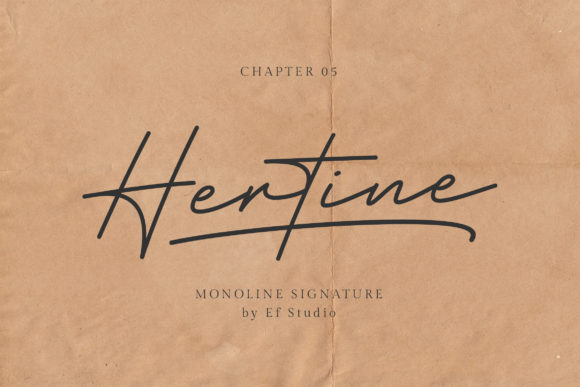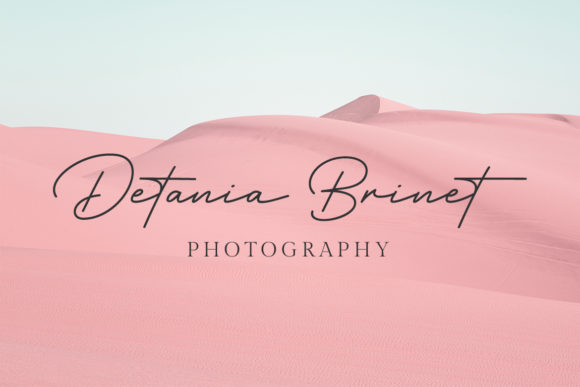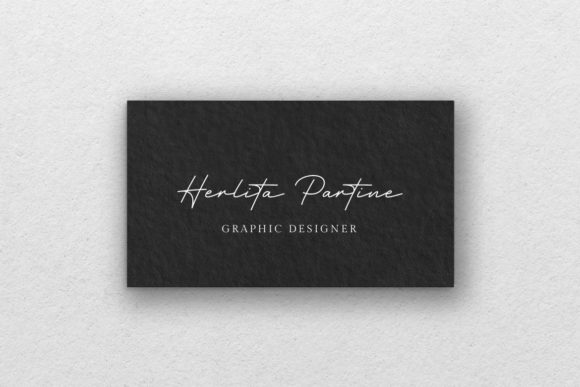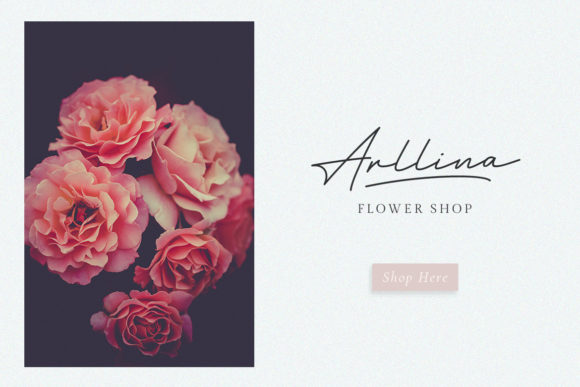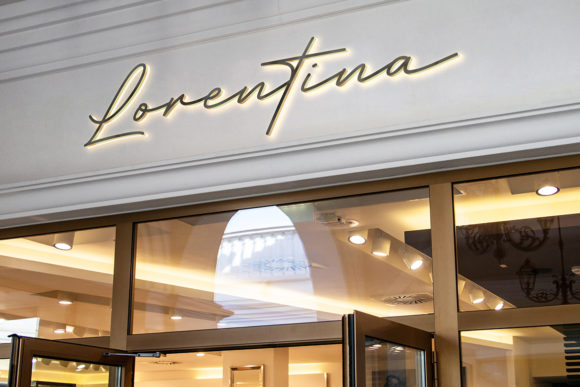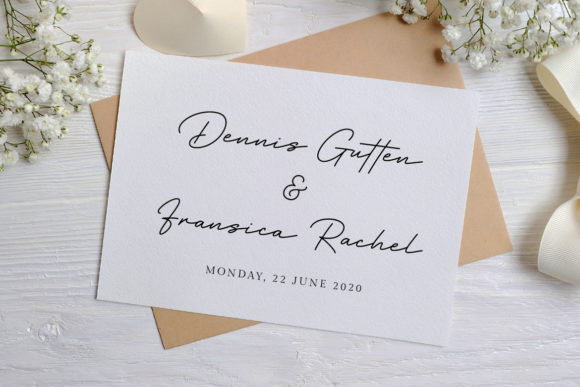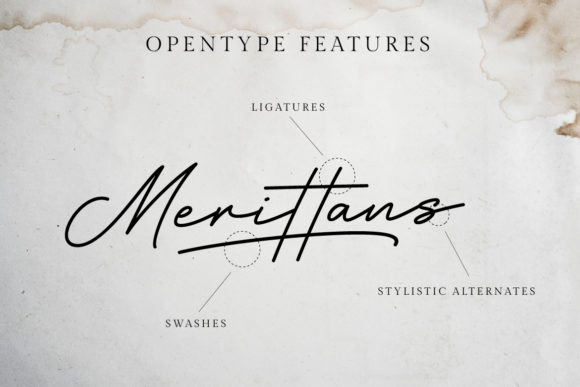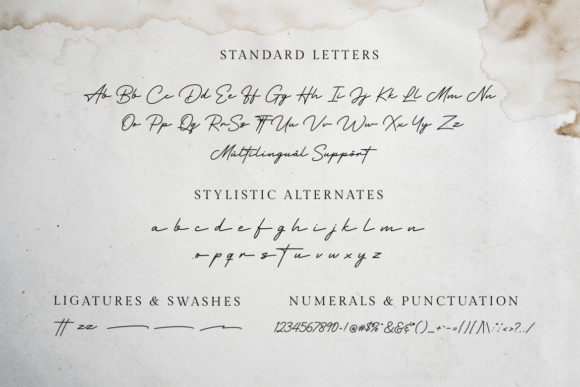
Hertine Font
About Hertine Font
Hertine is a friendly and casual script font with a unique style. It is perfectly suited for a wide variety of projects!